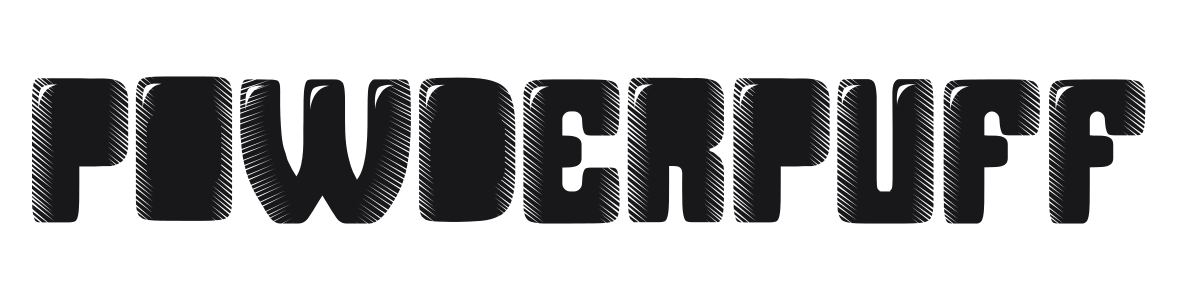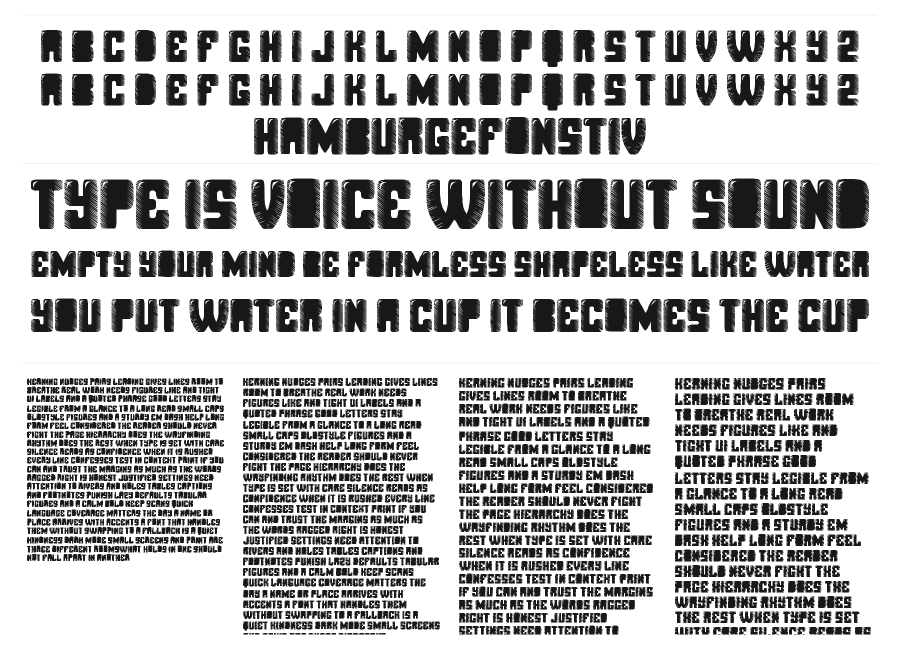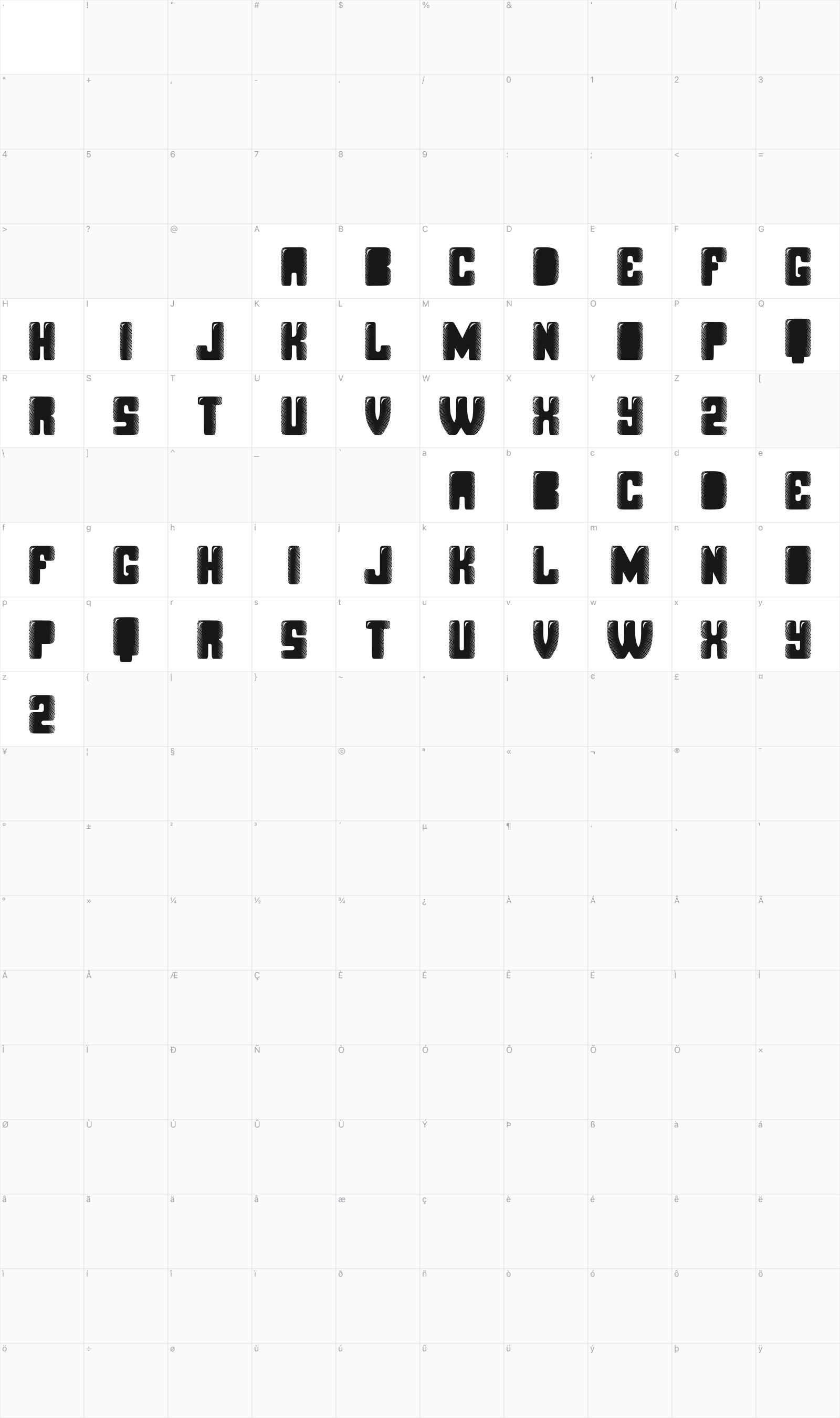
Powderpuff
Powderpuff is a heavy condensed display face with rounded corners and a striking diagonal hatch texture baked into every character. That screen-print quality gives it a gritty, hand-crafted feel that sits somewhere between a rubber stamp and a woodblock print. Strong for music posters, streetwear branding, and anything that needs raw visual weight.